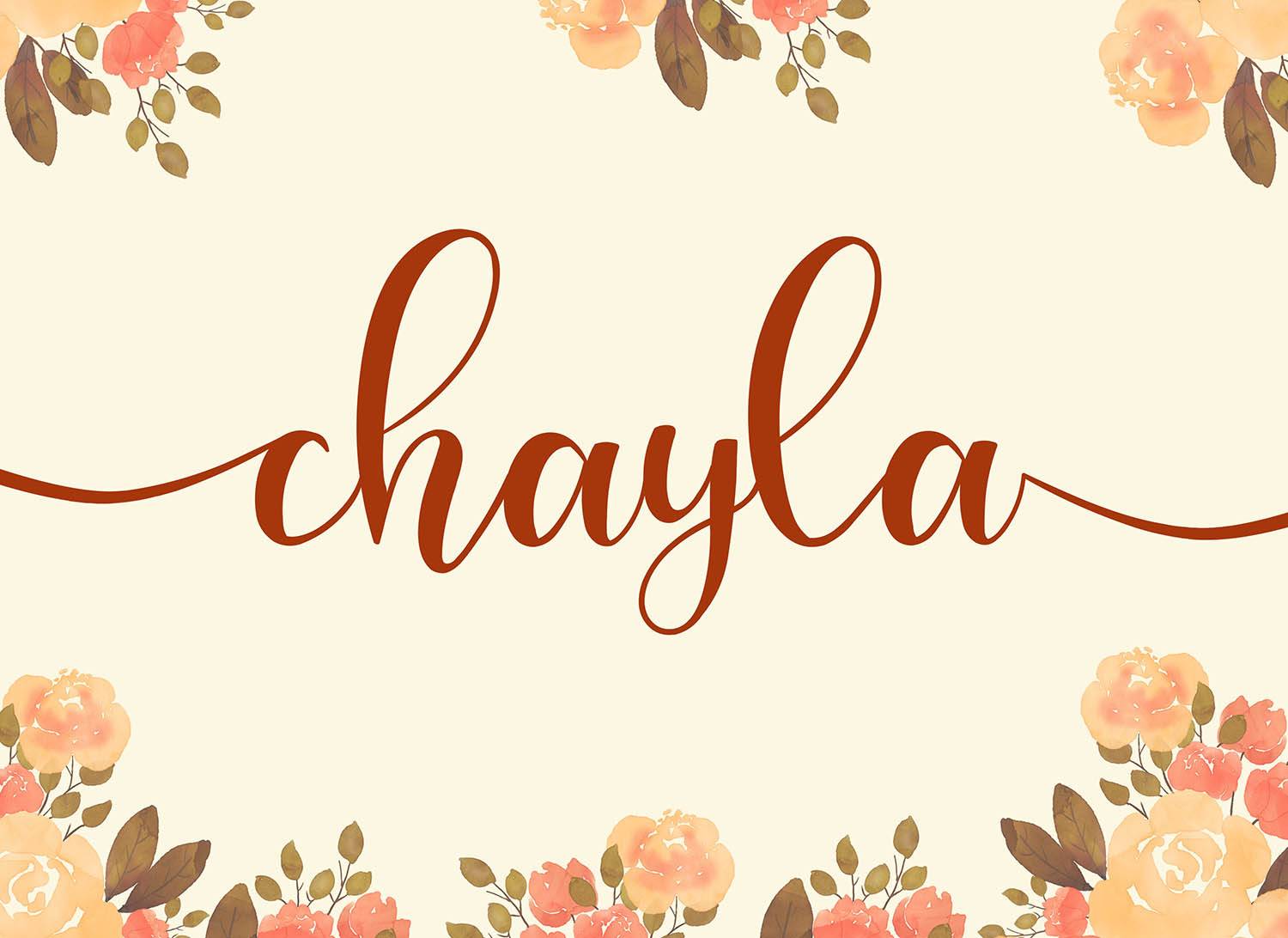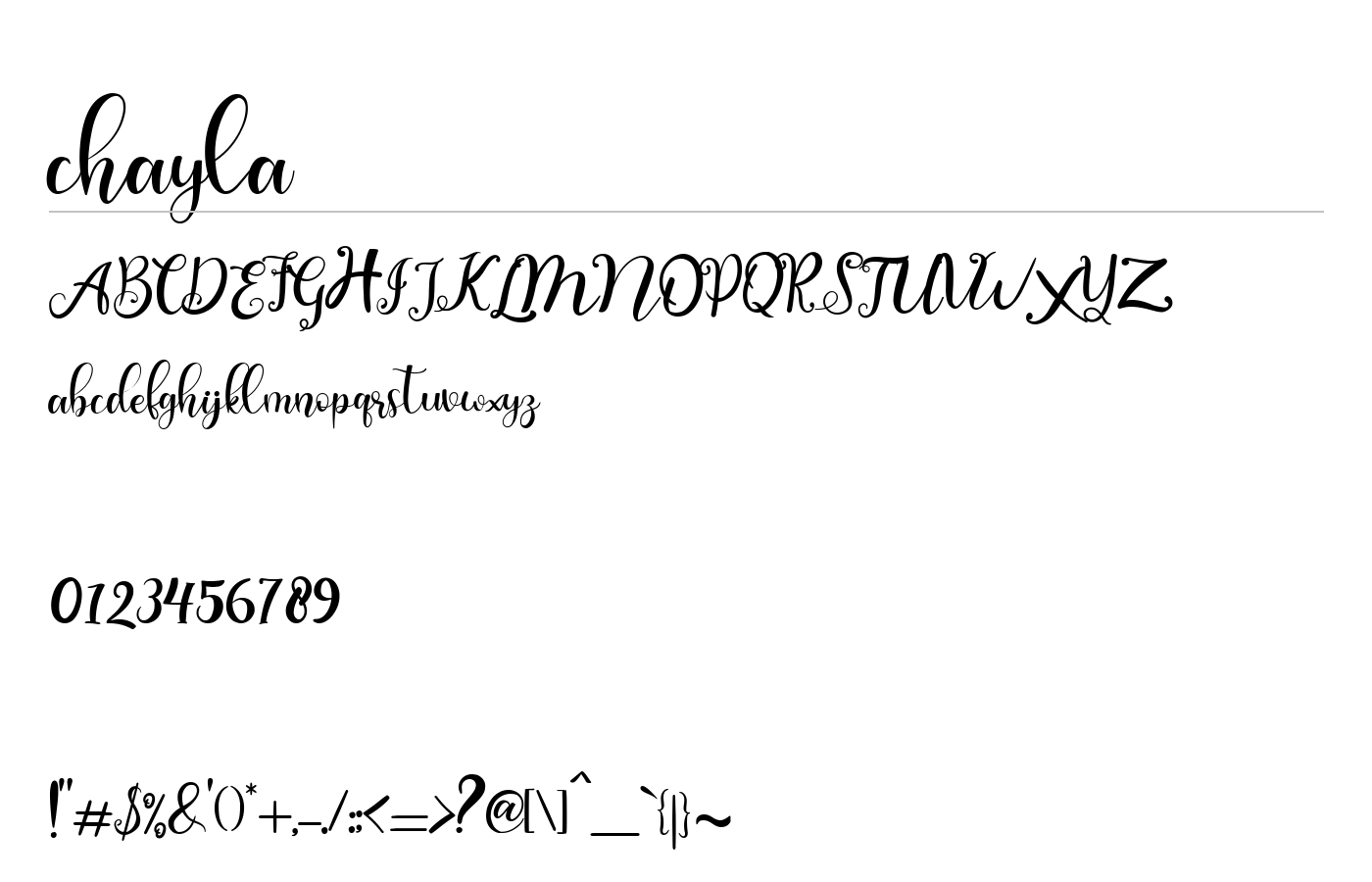
Chayla is an elegant script font with a delicate, handwritten feel, featuring smooth, flowing strokes and graceful curls that add a touch of sophistication. Its moderate contrast and slender letterforms make it perfect for feminine, romantic, or stylish branding, wedding invitations, and decorative headlines where a personal, refined touch is desired. This font works best in designs that need a classy, artistic flair without overwhelming the overall look.
Chayla Font
About Chayla Font